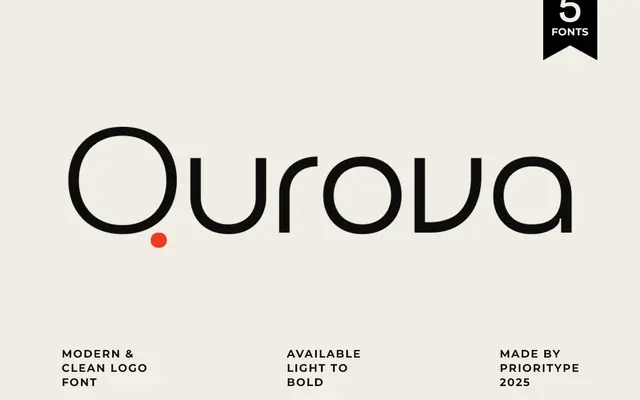
Qurova specimen from Prioritype
A geometric sans-serif with five weights, aimed at logo and branding work across a wide range of Latin languages.
Clean-lined and upright, it covers Light through Bold with no italic cuts, supplied in OTF, TTF, WOFF and variable formats. Language support spans over sixty Latin-script languages including Swahili, Norwegian and Uzbek. Positioned squarely at identity and logo work, though the design offers little to distinguish it from the broader market of similarly styled branding typefaces.
Described as a modern sans-serif with clean lines and geometric sensibility, positioned for branding and logo work with a full weight range.